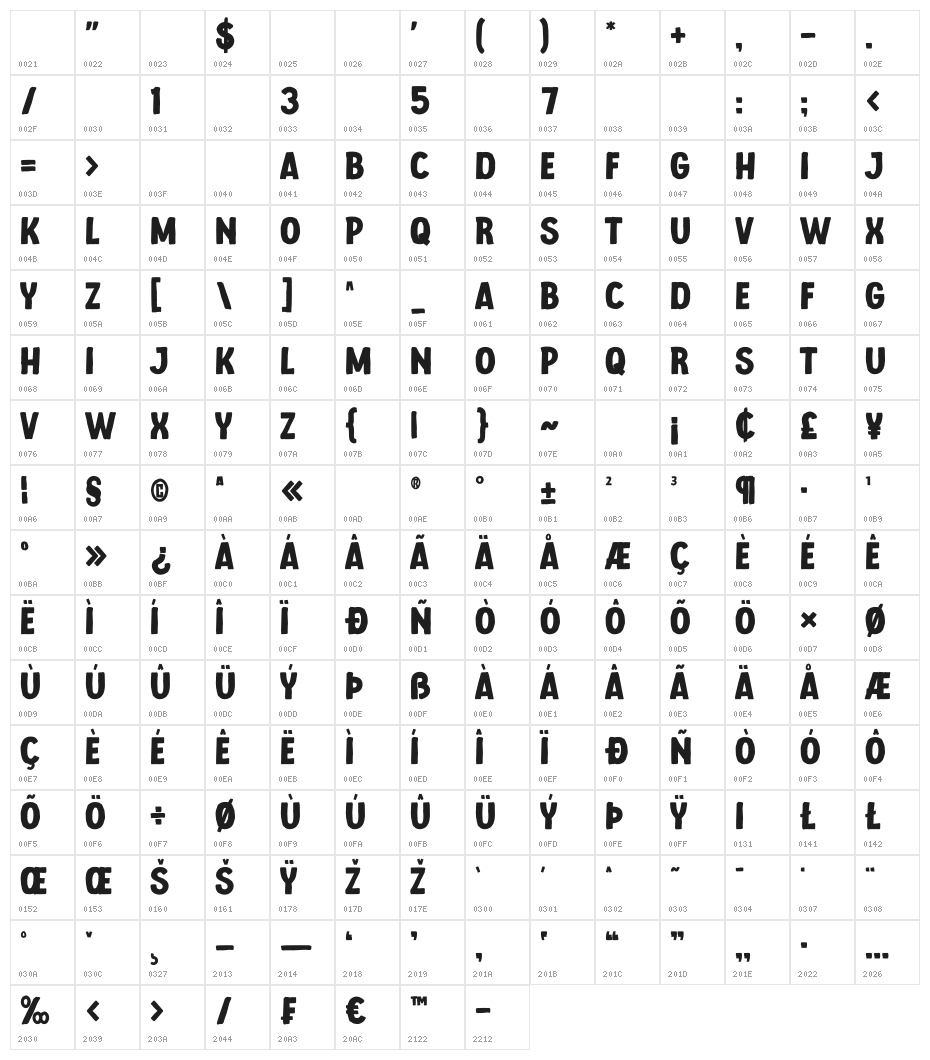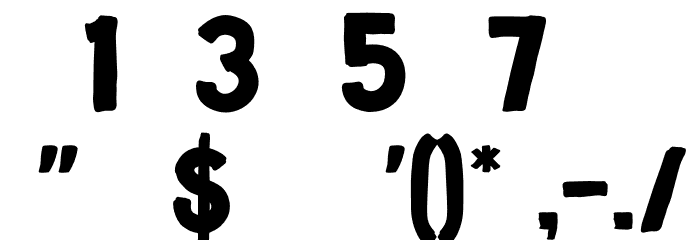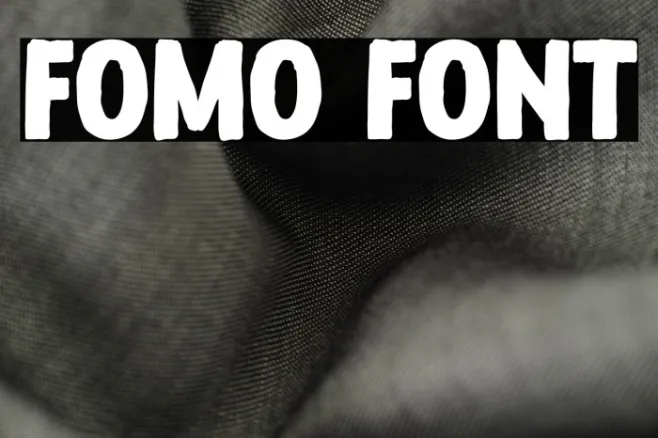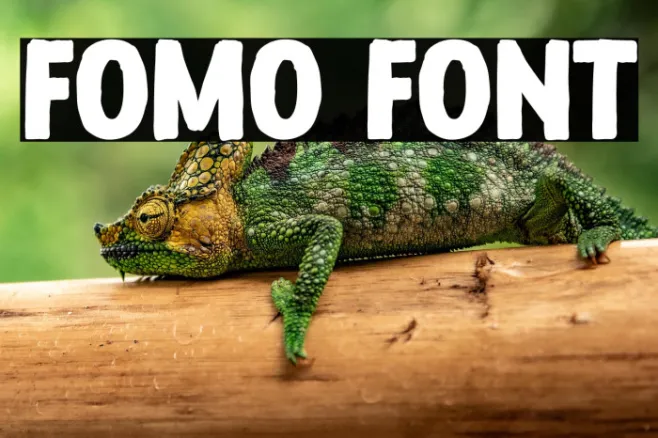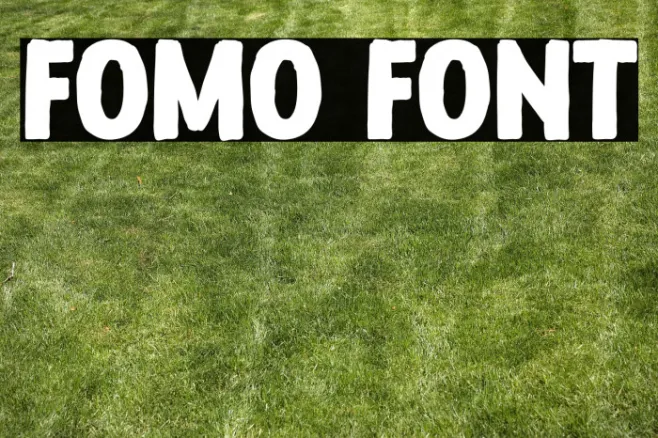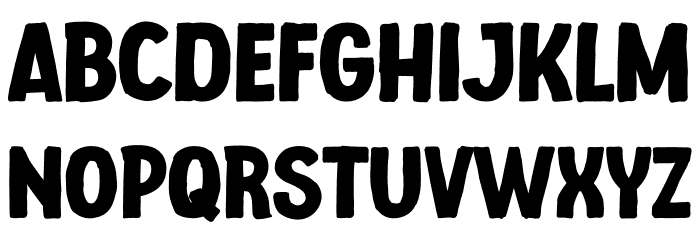
FOMO Font
FOMO Description
This font features a bold and expressive style with a hand-drawn appearance, characterized by its thick strokes and slightly irregular edges. The uppercase and lowercase letters maintain a consistent weight, providing a cohesive look. The numbers and special characters follow the same bold aesthetic, making them stand out prominently. The overall design gives off a playful yet assertive vibe, suitable for projects that require a strong visual impact. The font's unique character shapes and bold presence make it ideal for creative and artistic applications.
| Proposed Projects | Ideal for posters, branding, headlines, and any creative projects that require a strong visual impact. |